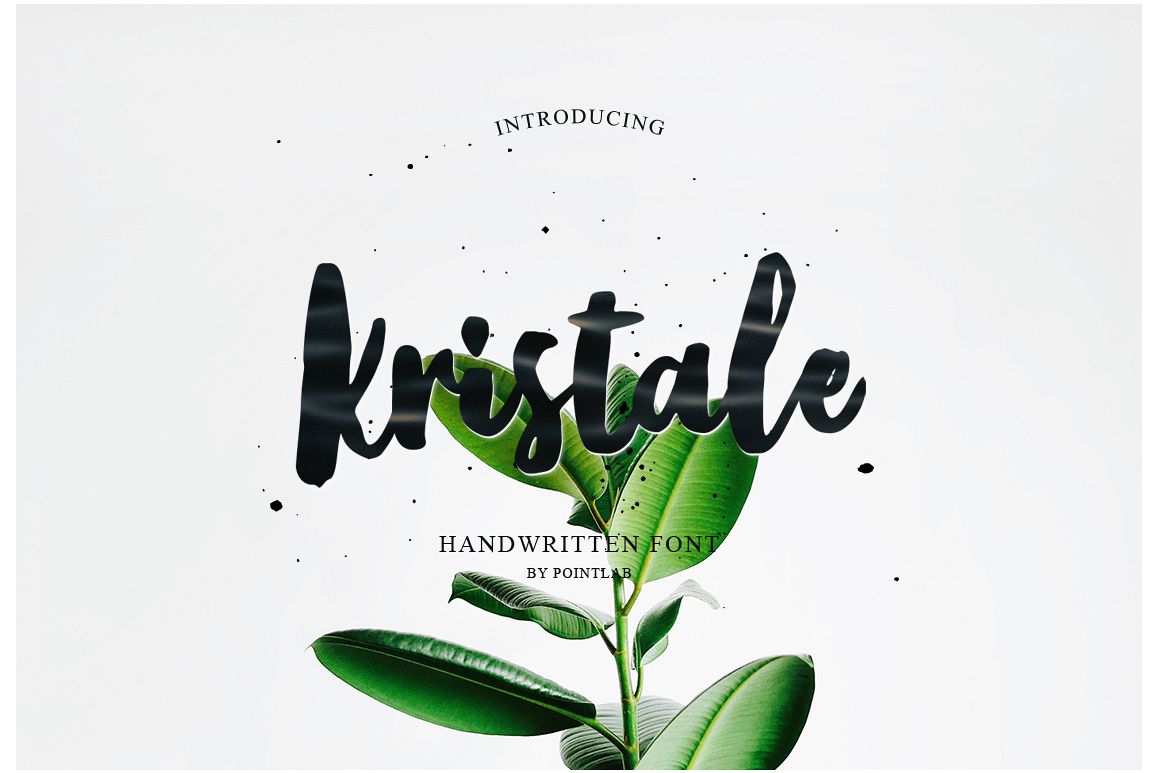
Created By pointlab
Kristale script
Kristale Script
Introducing Kristale script a new fresh & modern script with a handmade calligraphy style, decorative characters and a dancing baseline! So beautiful on invitation like greeting cards, branding materials, business cards, quotes, posters, and more!!Kristale script come with 300+ glyphs. The alternative characters were divided into several Open Type features such as Swash, Alternates Set. The Open Type features can be accessed by using Open Type savvy programs such as Adobe Illustrator, Adobe InDesign, Adobe Photoshop Corel Draw X version, And Microsoft Word. And this Font has given PUA unicode (specially coded fonts). so that all the alternate characters can easily be accessed in full by a craftsman or designer.
• Kristale script: